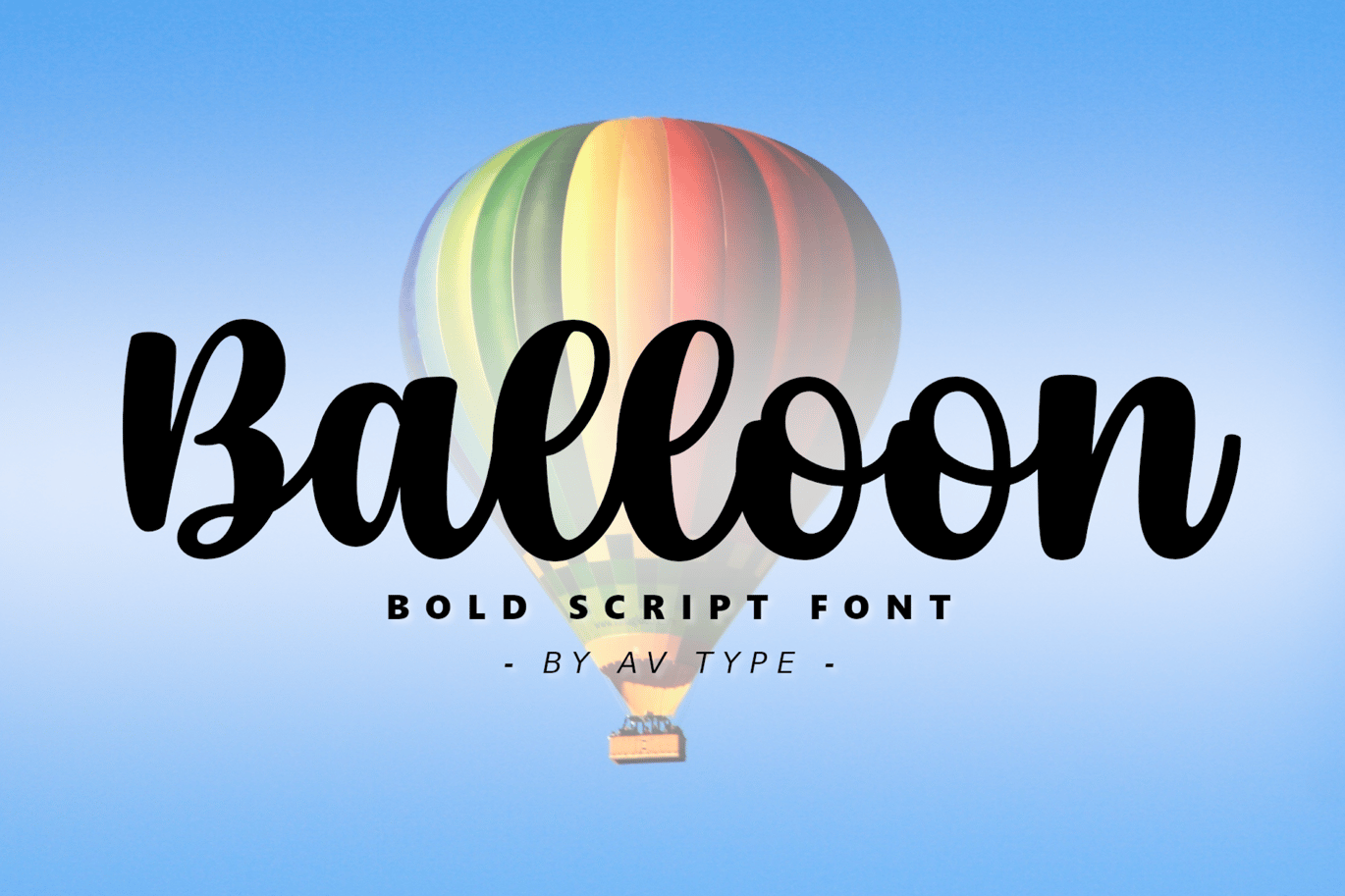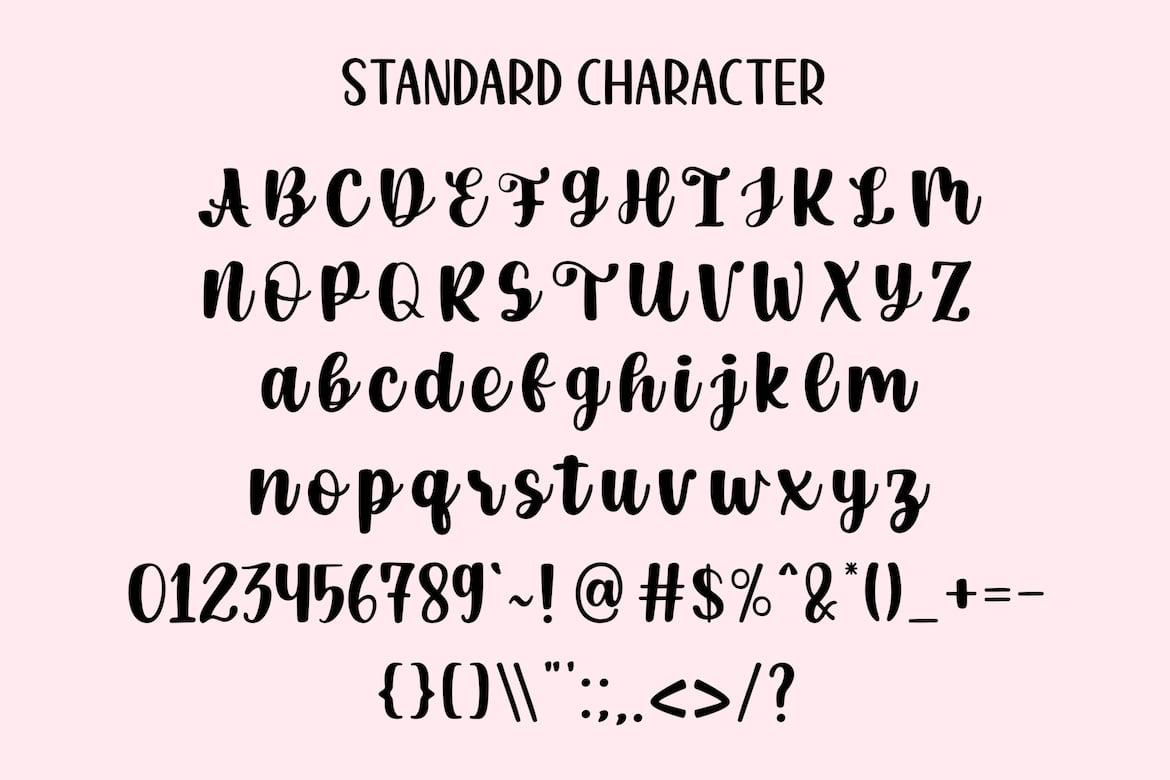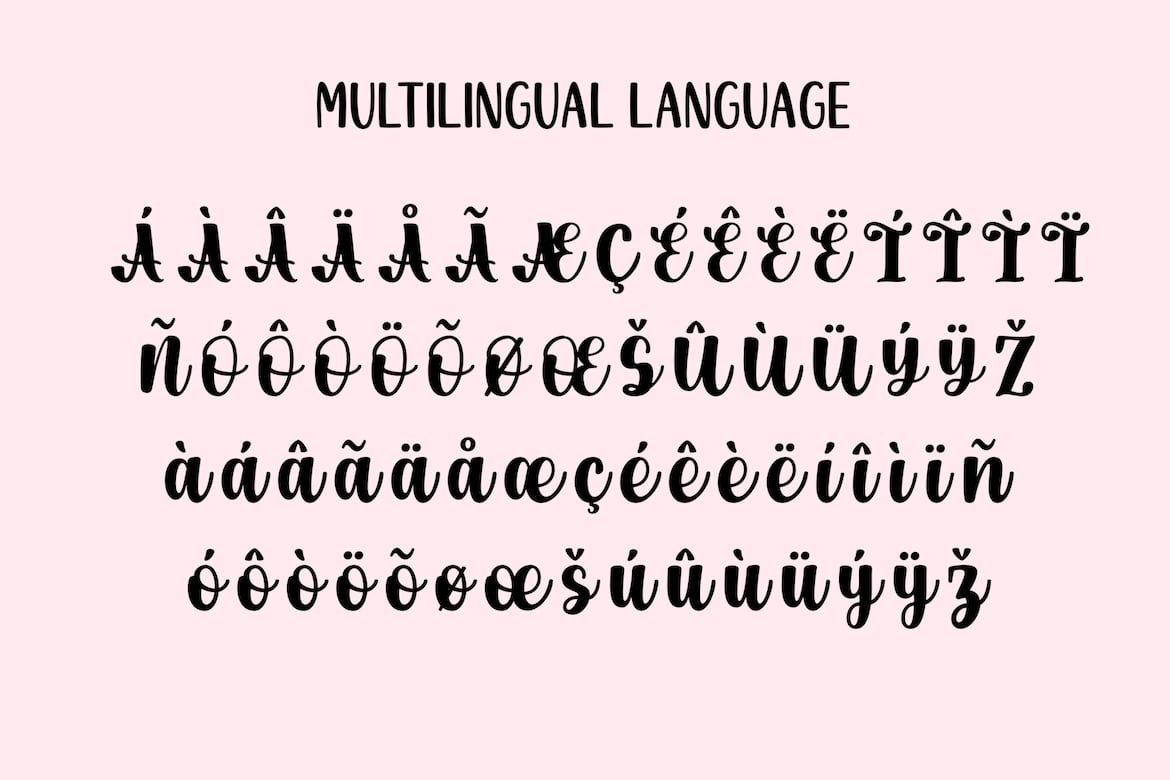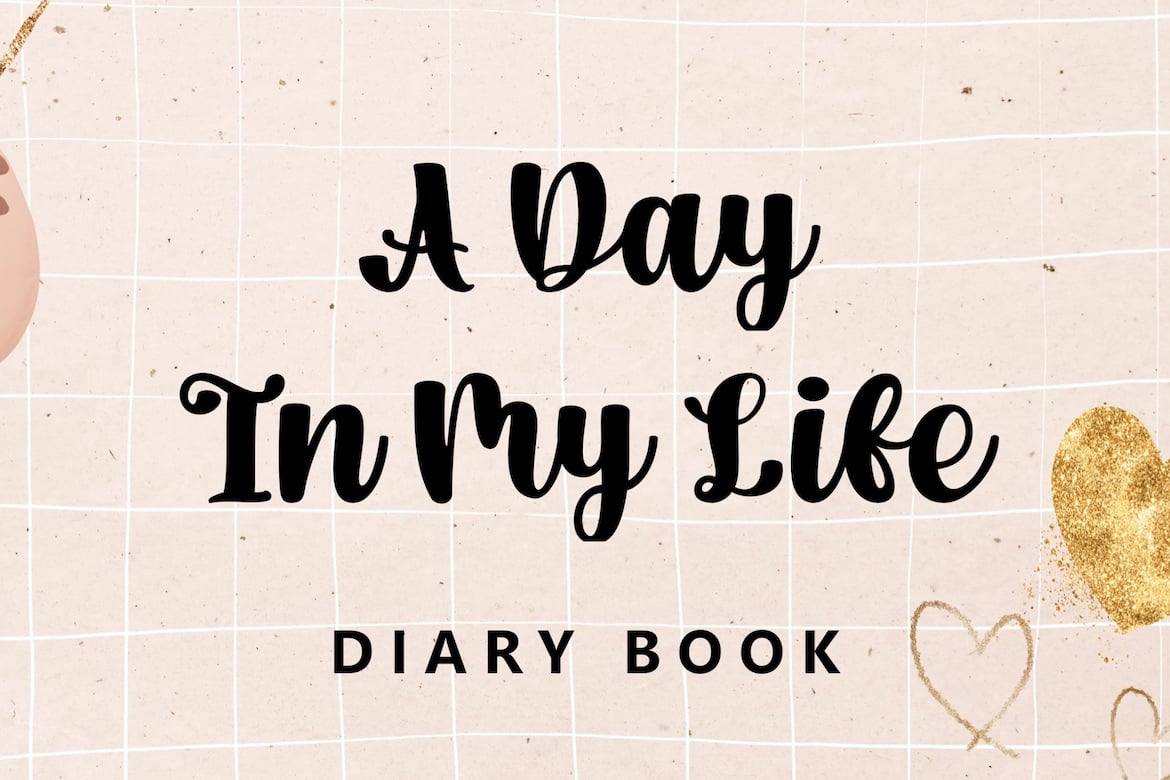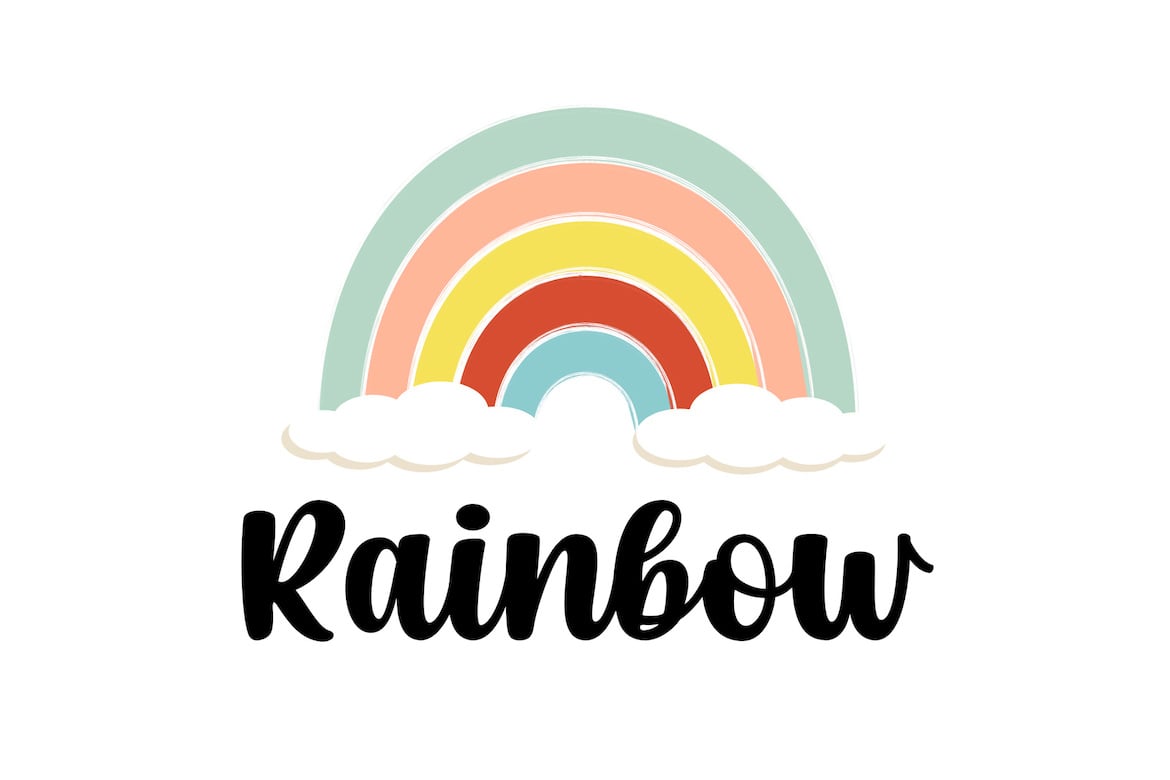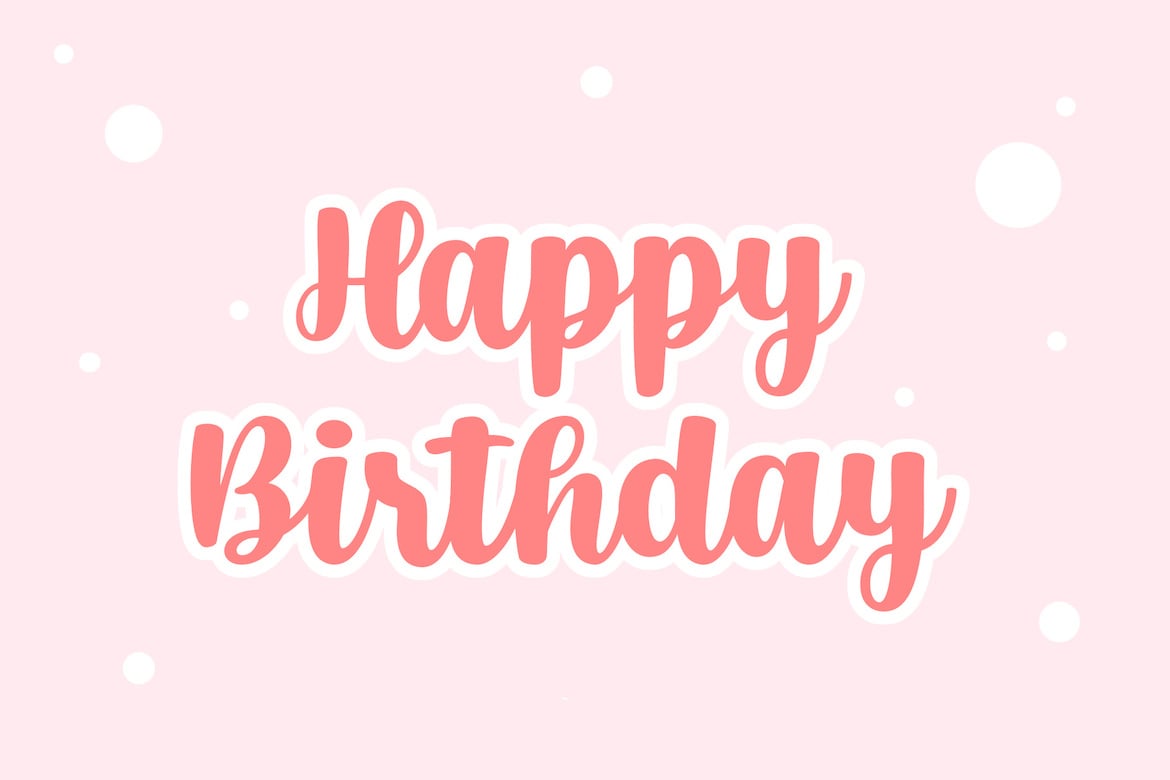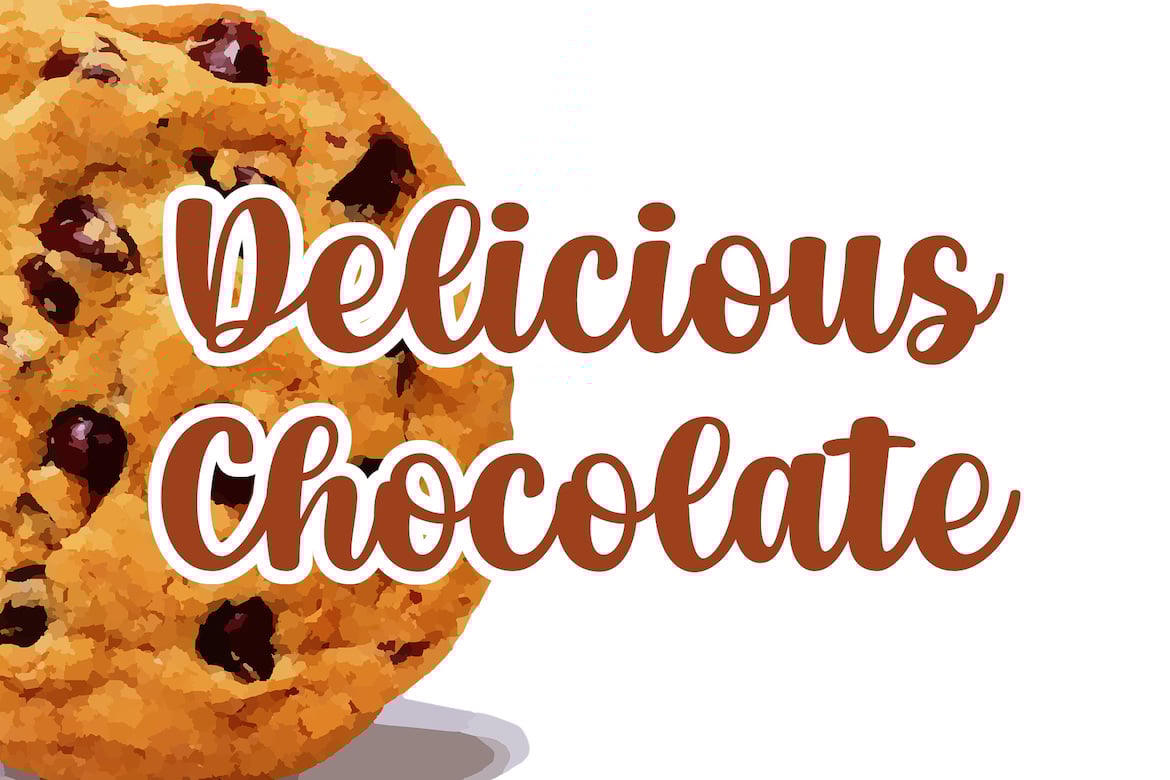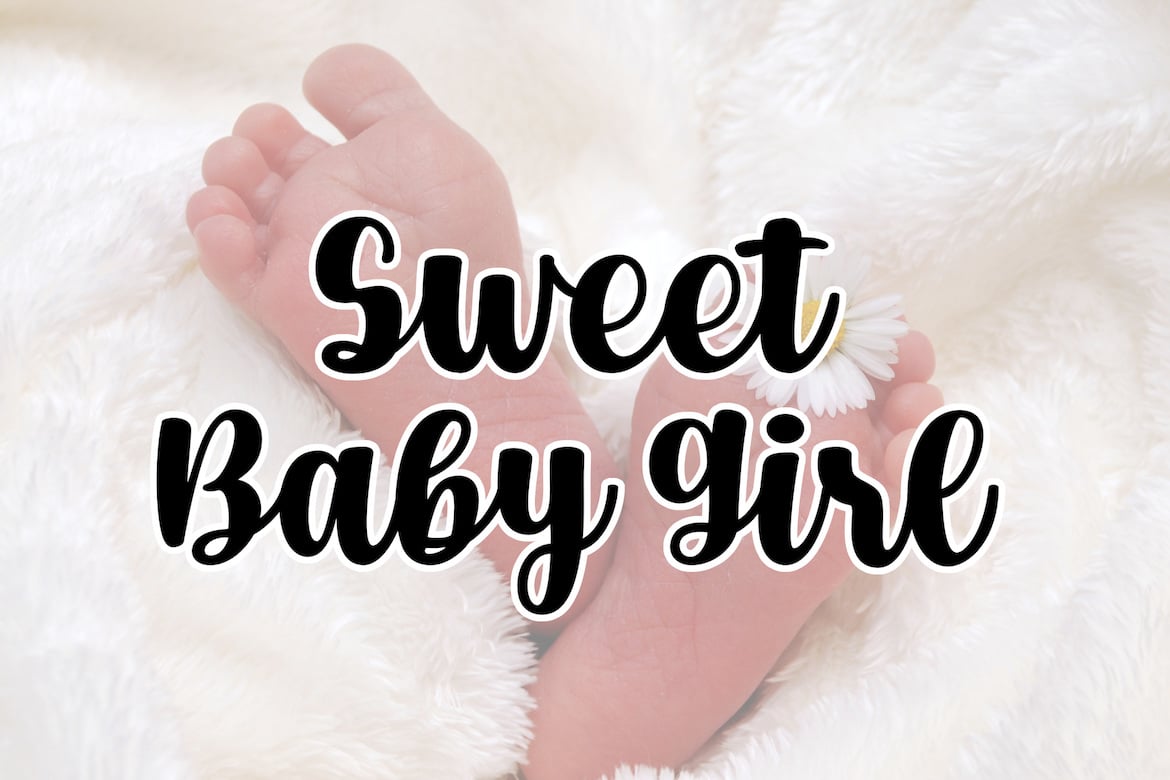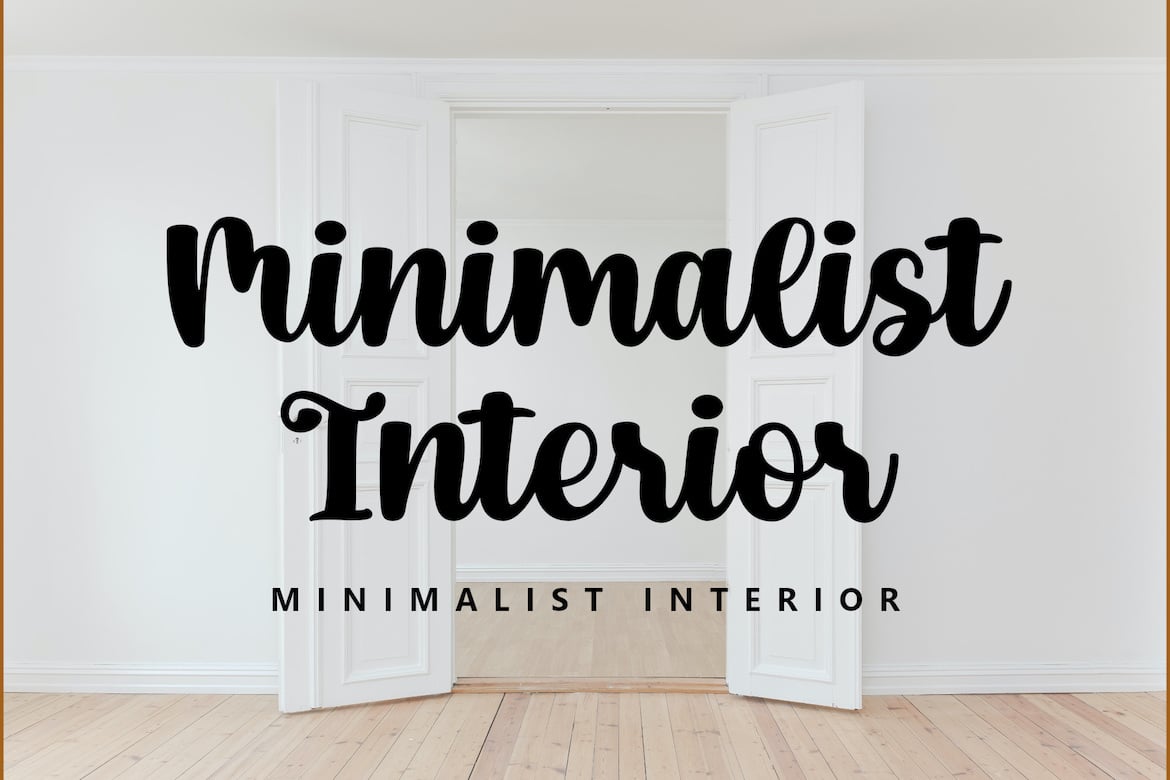
Balloon Script Font
Balloon Font is a bold script font featuring simple yet captivating letter characters. Perfect for studygram enthusiasts and crafters, this font brings a playful and engaging touch to your designs. Ideal for birthday posters, children’s book covers, children’s posters, food and beverage logos, and more, Balloon Font is your go-to choice for adding charm and vibrancy to any project.
All Character:
!”#$%&'()*+,-./0123456789:;<=>?@ABCDEFGHIJKLMNOPQRSTUVWXYZ[]^_`abcdefghijklmnopqrstuvwxyz{|}~¨¸ÀÁÂÃÄÅÆÇÈÉÊËÌÍÎÏÑÒÓÔÕÖØÙÚÛÜÝàáâãäåæçèéêëìíîïñòóôõöøùúûüýÿŒœˋˊ˜ˆˇ˚ıŸŠŽšž